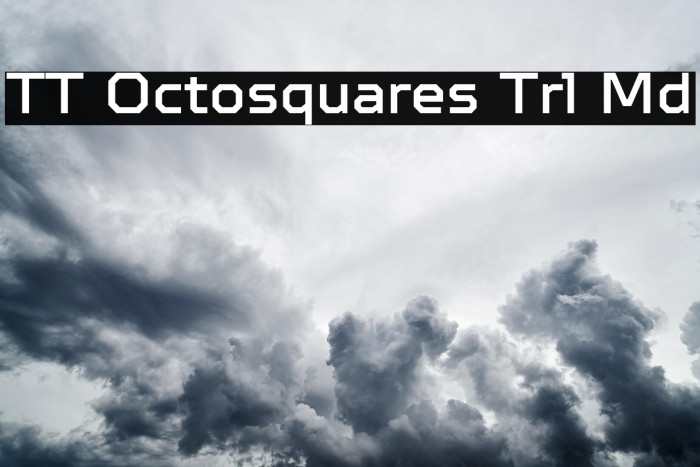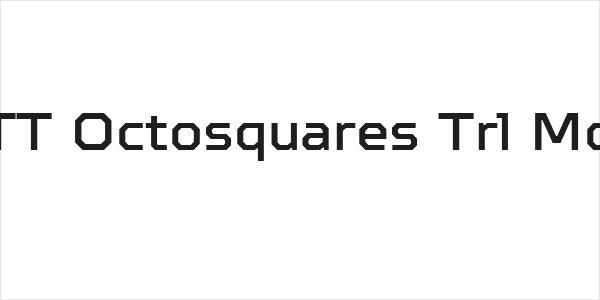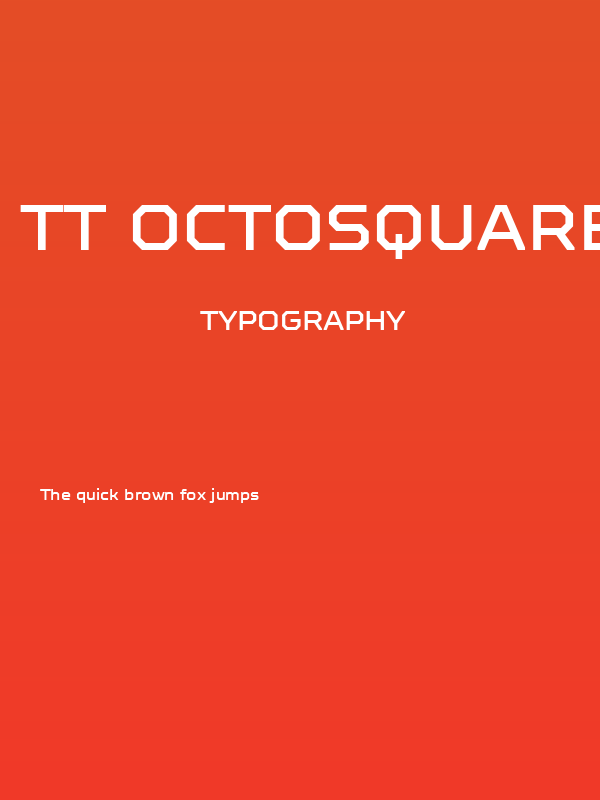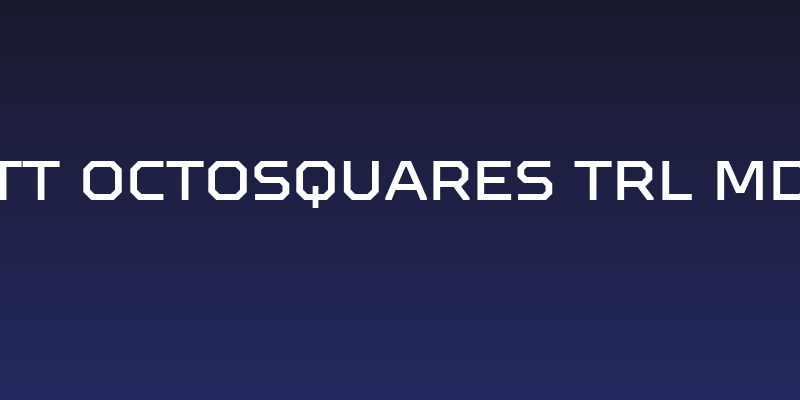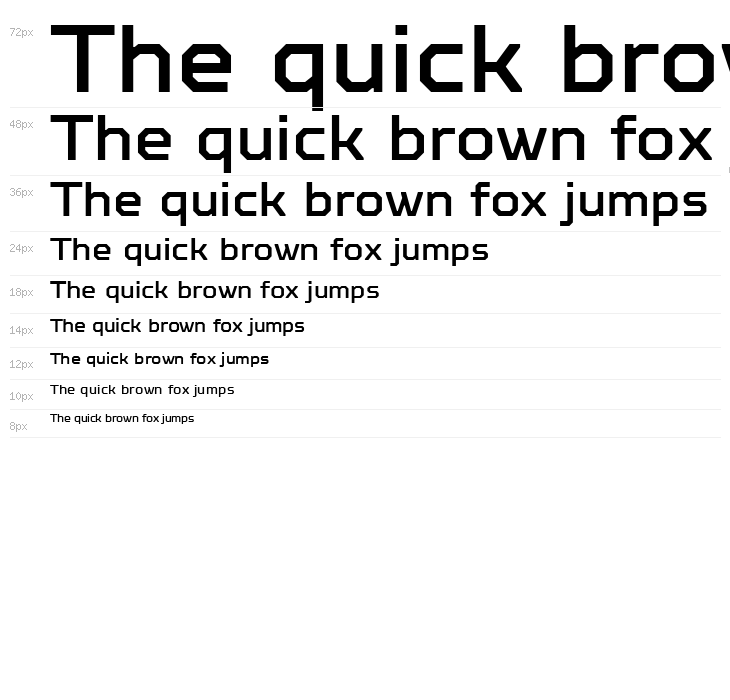
TT Octosquares Trl Md Font
TT Octosquares Trl Md Description
This font features a geometric and modern design, characterized by its octagonal shapes and clean lines. The uppercase and lowercase letters maintain a consistent structure, with sharp angles and a uniform stroke width. The numerals and special characters follow the same design principles, ensuring a cohesive appearance across all glyphs. The font's distinct style makes it suitable for digital and print media, where a contemporary and tech-inspired look is desired. Its clarity and precision make it ideal for projects that require a futuristic or minimalist aesthetic.
| Use Case | Headlines, Logos, Digital interfaces |
| Proposed Projects | Ideal for tech branding, digital interfaces, modern posters, and futuristic designs. |